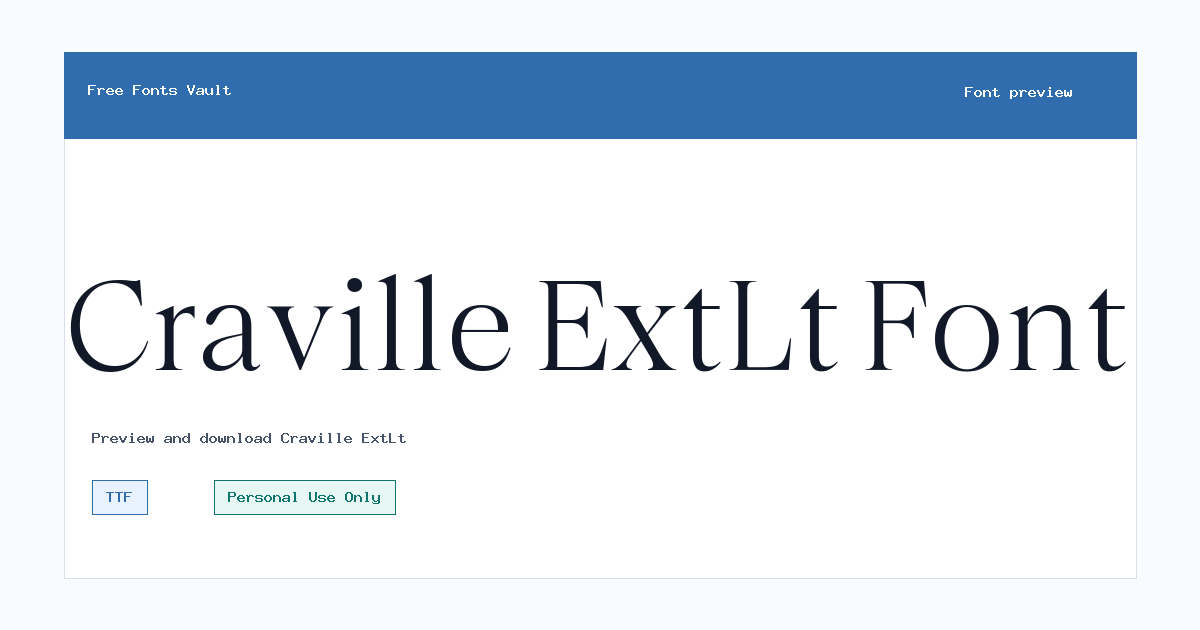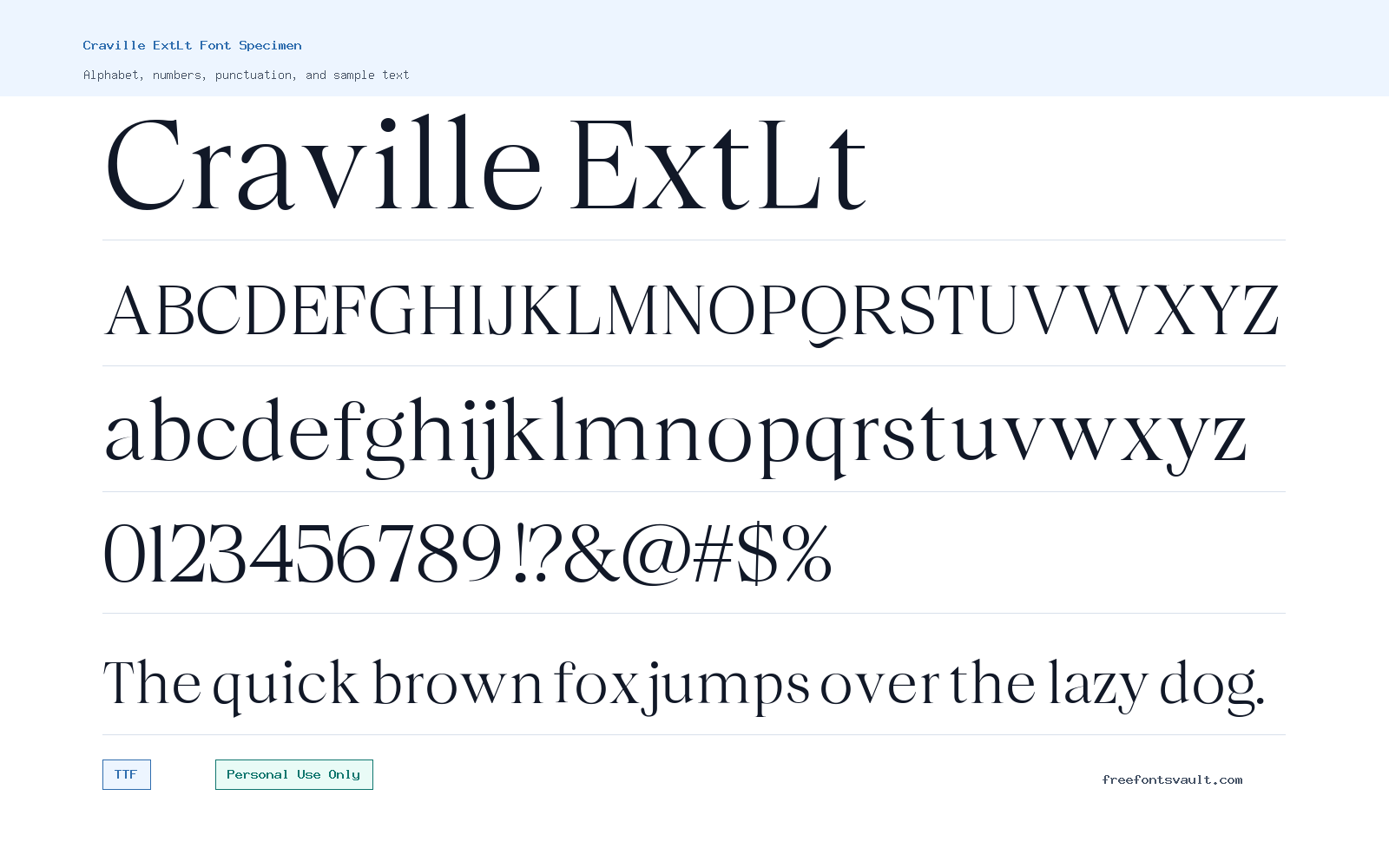
Craville ExtLt
Craville ExtLt is a light-weight serif font with a refined look suited to display typography, branding drafts, posters, and elegant web mockups.
About Craville ExtLt Font
Craville ExtLt is the ExtraLight style of the Craville font family. Its thin serif structure gives text a delicate, polished feel, making it more useful for display settings than for long body copy. The font file is provided in TTF format, with a normal style and a light 300 weight. That makes it easy to test in common design apps, preview tools, and many font managers. Because the style is light, it works best when the text has enough space around it and when the background gives the letters strong contrast.
Use Craville ExtLt when you want a calm, upscale serif tone without making the design feel heavy. It can work well for fashion-style headings, editorial titles, invitation mockups, quote graphics, poster text, logo concepts, boutique branding drafts, and website hero sections. For logo work, test the font at both large and small sizes before committing, because extra-light strokes can disappear when reduced, printed poorly, or placed over busy imagery. For posters and social graphics, give the letters generous tracking and avoid overly thin color combinations such as pale gray on white. For web mockups, it is best used in short headings, labels, or feature text rather than paragraphs.
Pairing Craville ExtLt with a clean sans serif can help balance its fine serif details. A neutral sans serif is a safe choice for navigation, captions, and longer descriptions, while Craville ExtLt can handle the main title or brand wordmark. If you pair it with another serif, choose one with a clearer text weight so the page does not become too fragile. In practical layouts, try Craville ExtLt for the main headline, then use a stronger regular or medium-weight font for supporting copy. This keeps the visual style elegant while protecting readability.
- ExtraLight serif style with a delicate 300 weight
- Normal upright style for clean display typography
- Best suited to short, high-contrast text rather than dense paragraphs
- Useful for testing elegant headings, posters, logo concepts, and web mockups
- Editorial-style headlines
- Logo concepts and branding drafts
- Fashion, beauty, or boutique-style mockups
- Poster titles and quote graphics
- Invitation and stationery designs
- Website hero headings
- Personal design practice projects
- Social media graphics with short text
Test Craville ExtLt at the size you plan to use. Its extra-light strokes look best in large display text, with strong contrast and enough spacing. Avoid using it for long paragraphs, tiny captions, or low-contrast layouts. For a balanced design, pair it with a readable sans serif or a sturdier text font for supporting copy.
What type of font is Craville ExtLt?
Craville ExtLt is a light serif font style. It is best suited to display typography such as headings, posters, logo drafts, and elegant short text.
Is Craville ExtLt good for body text?
It is better for short display text. The extra-light weight may become hard to read in long paragraphs or small sizes.
What should I pair with Craville ExtLt?
A clean sans serif is a practical pairing choice. Use Craville ExtLt for the headline and a more readable regular or medium-weight font for body copy.